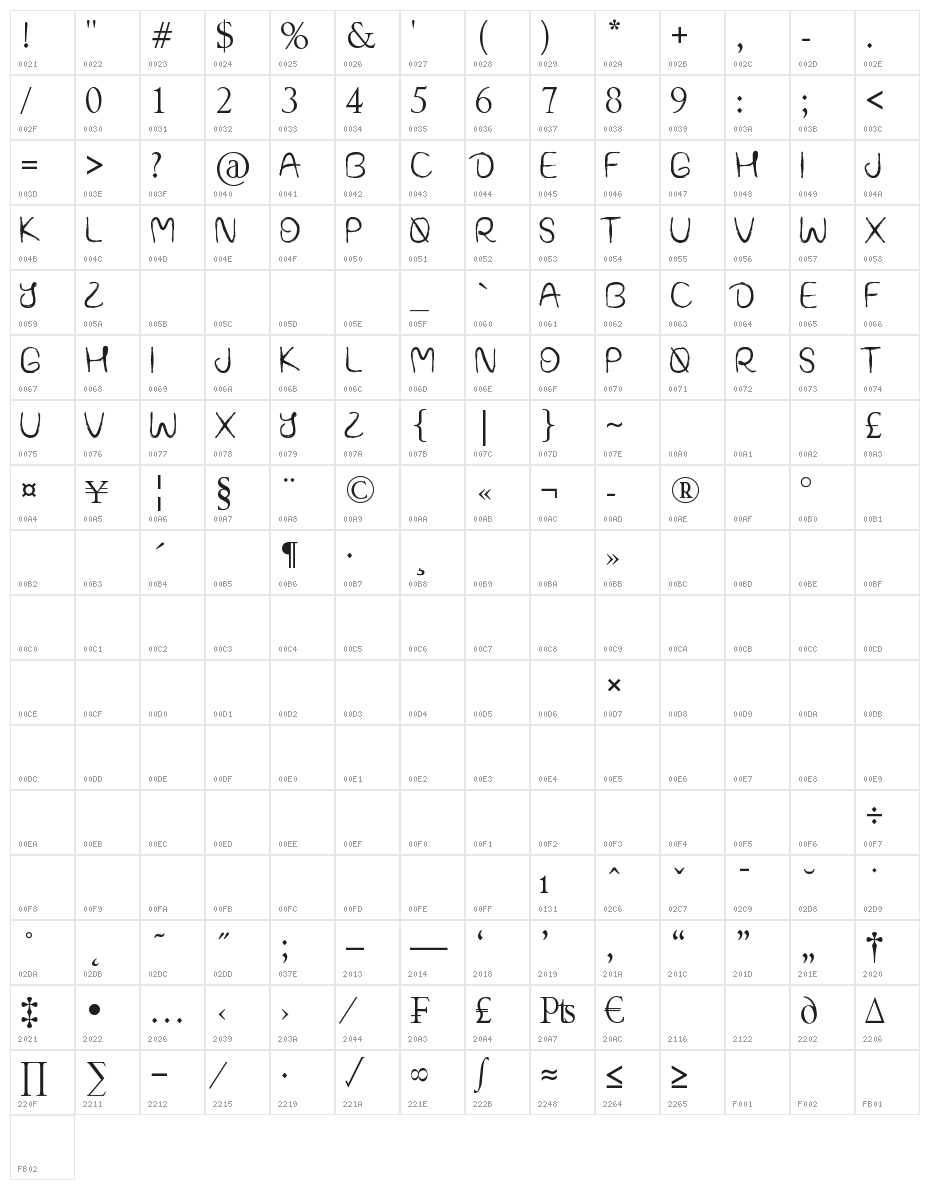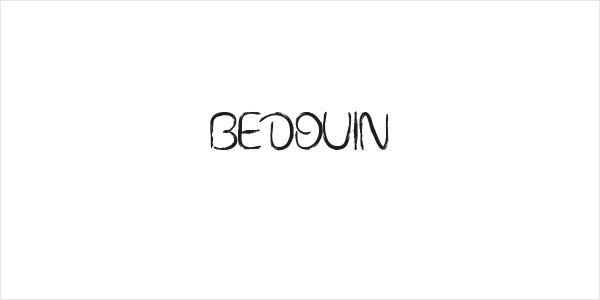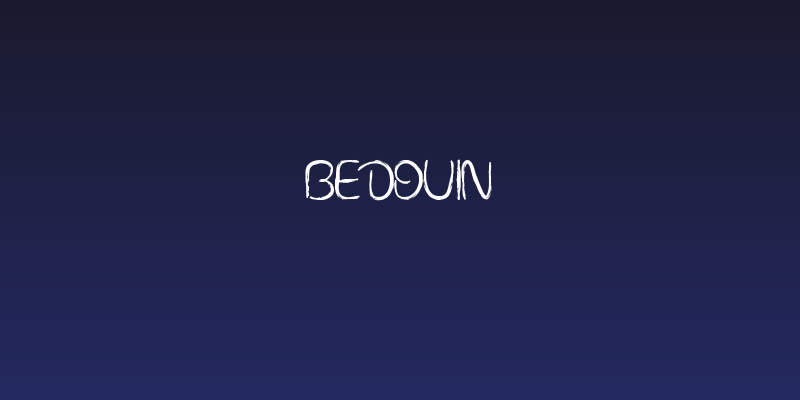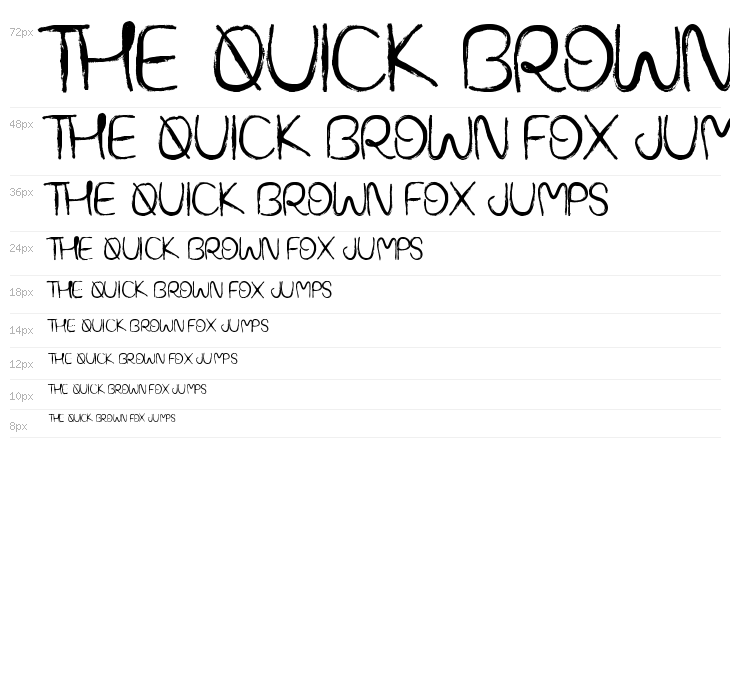
BEDOUIN Font
BEDOUIN Description
This font features a unique blend of rustic and artistic elements, characterized by its brush-like strokes that give it a hand-painted appearance. The uppercase and lowercase letters maintain a consistent style, with slightly irregular edges that add to its organic feel. The numerals and special characters follow the same aesthetic, ensuring a cohesive look across all text elements. The font's design is reminiscent of traditional calligraphy, yet it incorporates modern touches that make it versatile for various applications. Its distinct style makes it ideal for projects that require a personal, handcrafted touch.
| Overall Style | Artistic, Handcrafted |
| Proposed Projects | Ideal for branding, packaging, invitations, and artistic projects requiring a personal touch. |